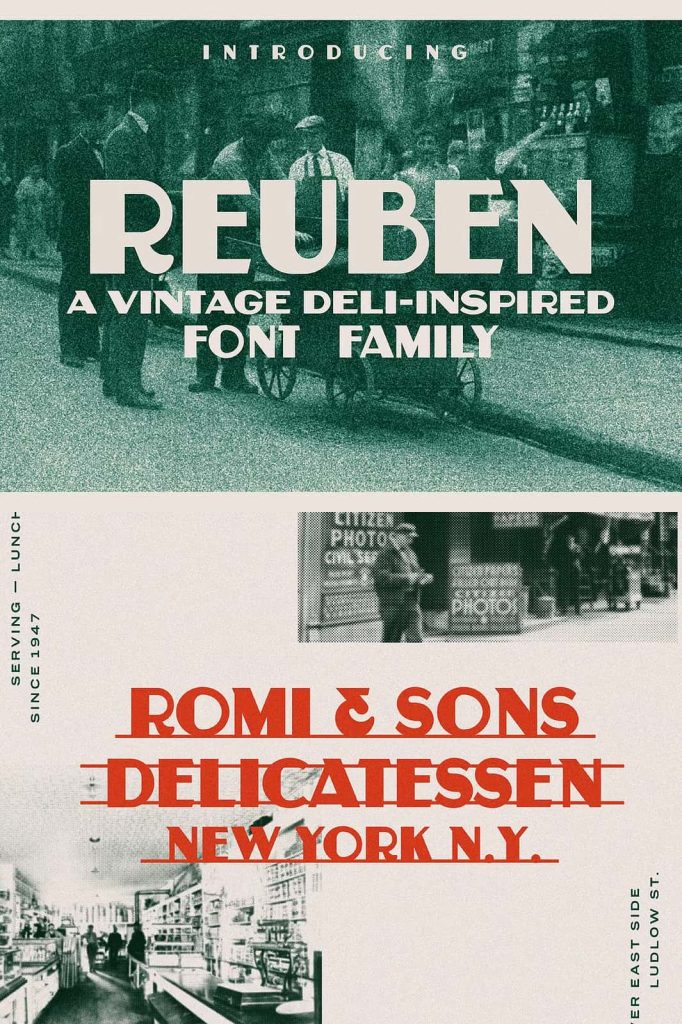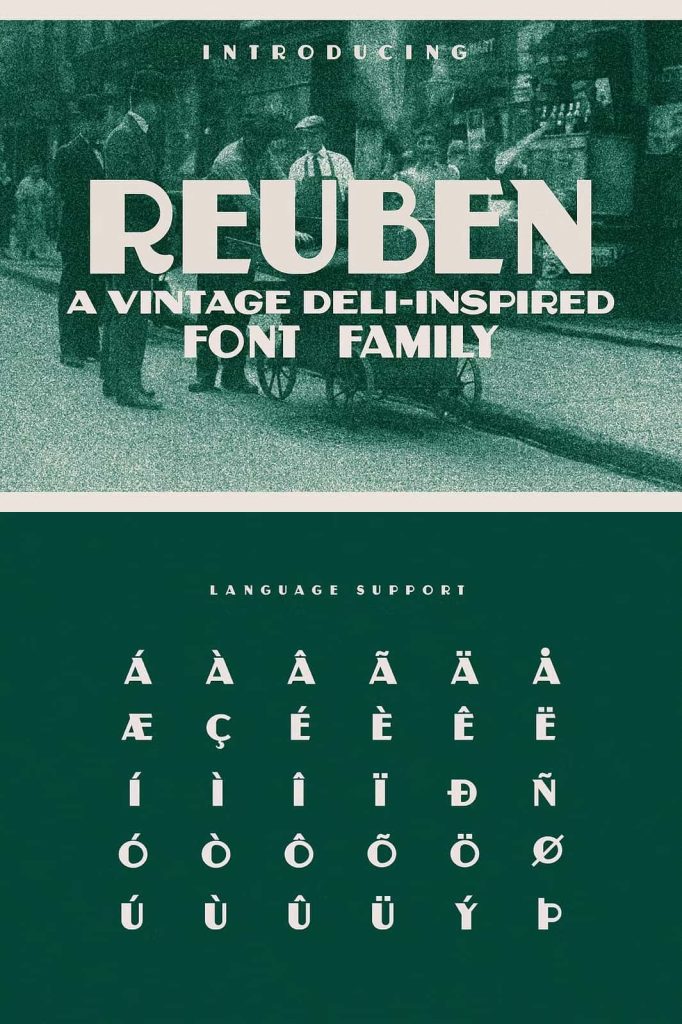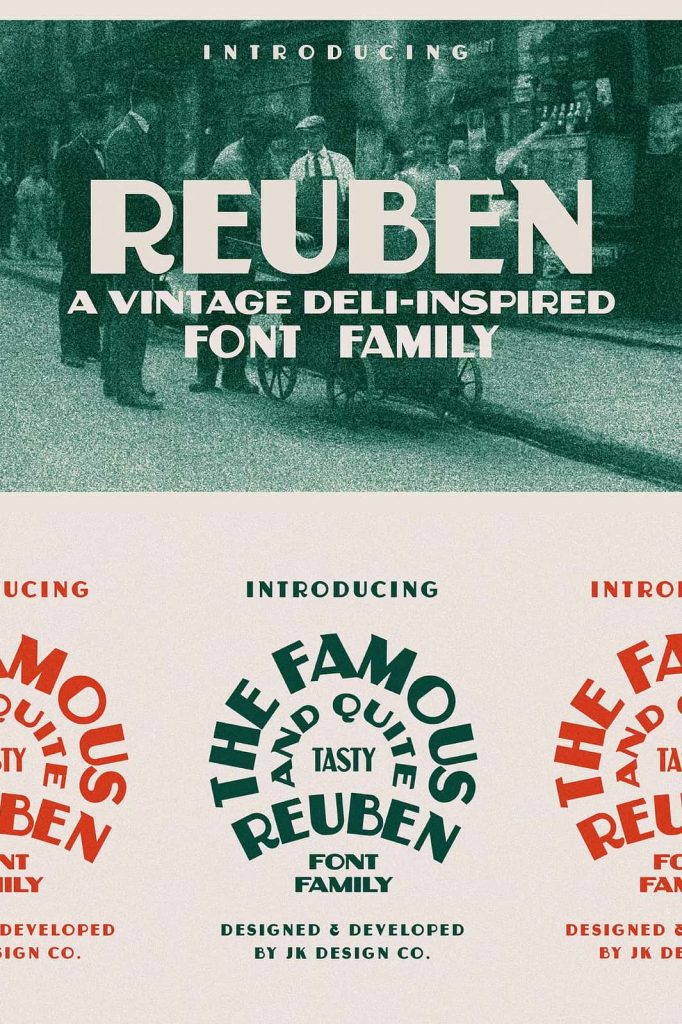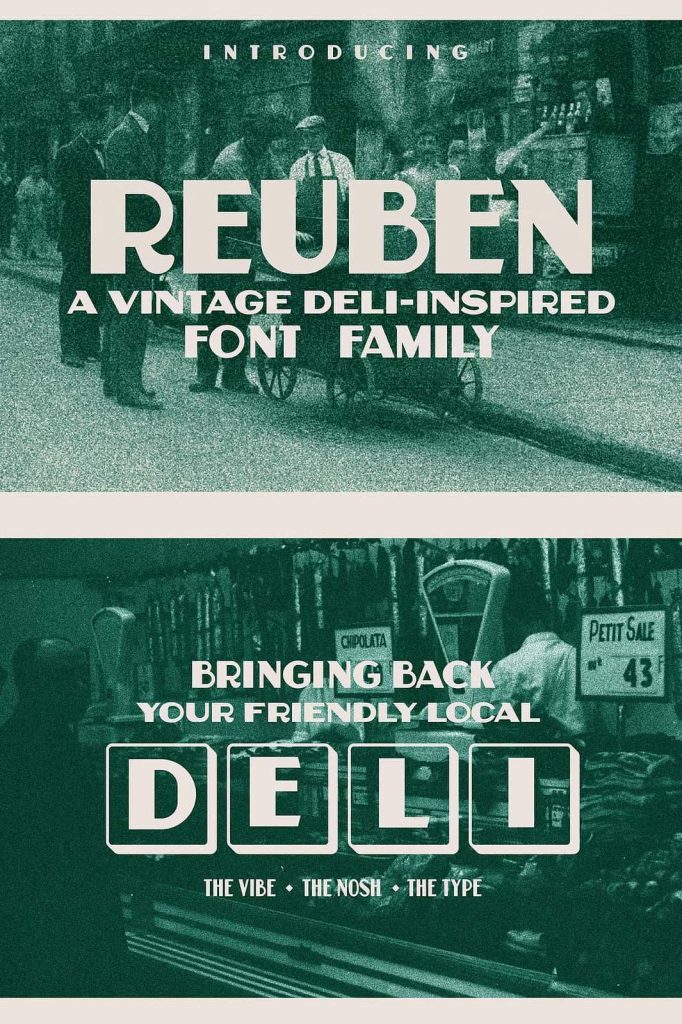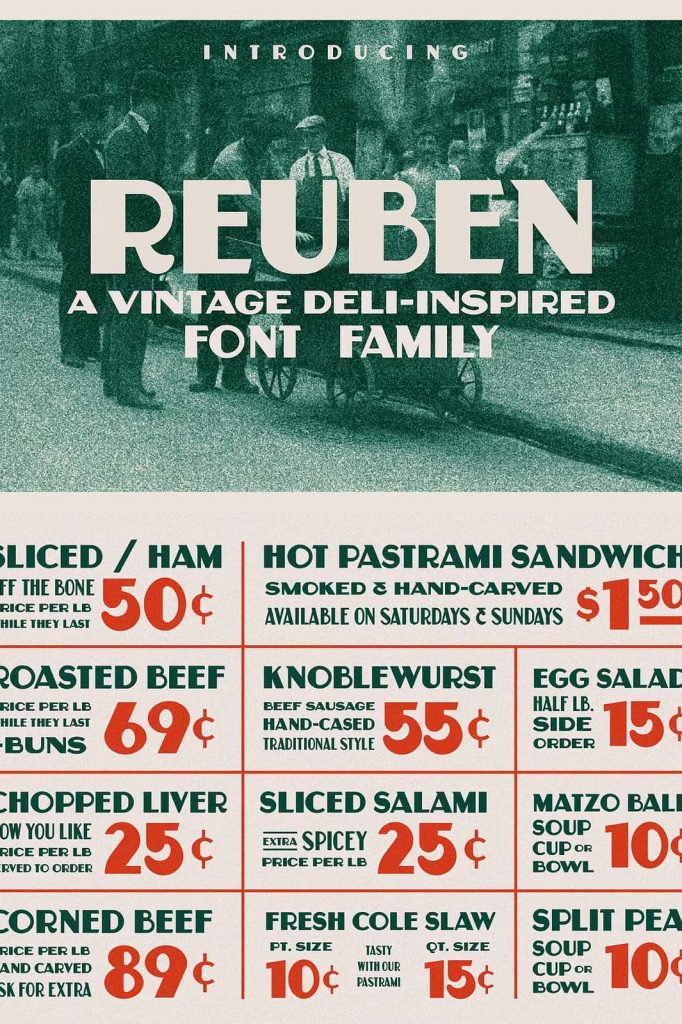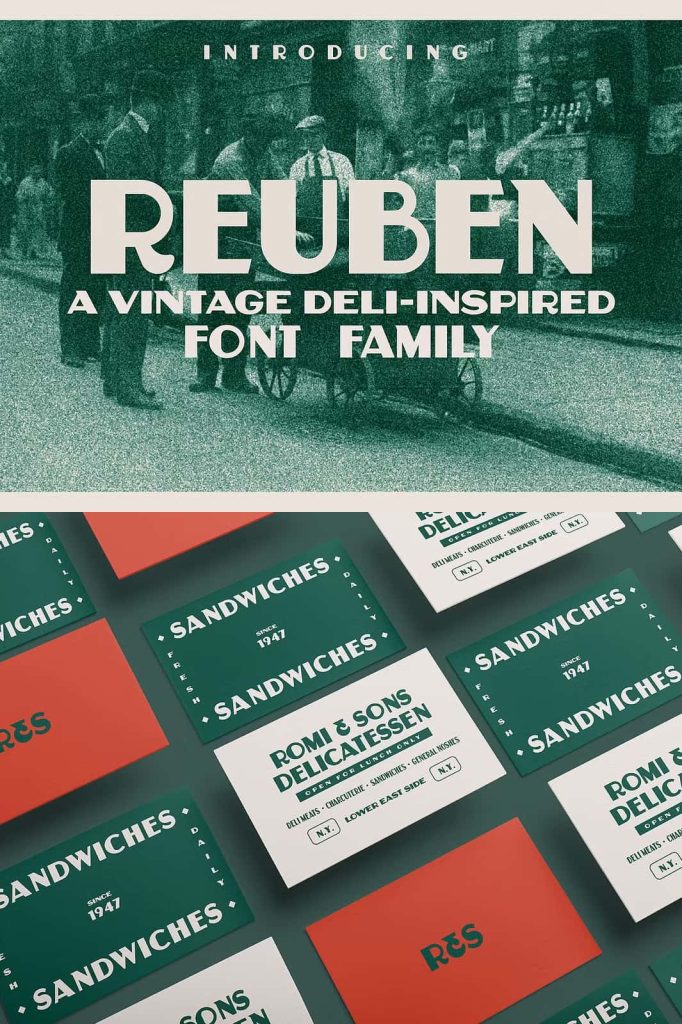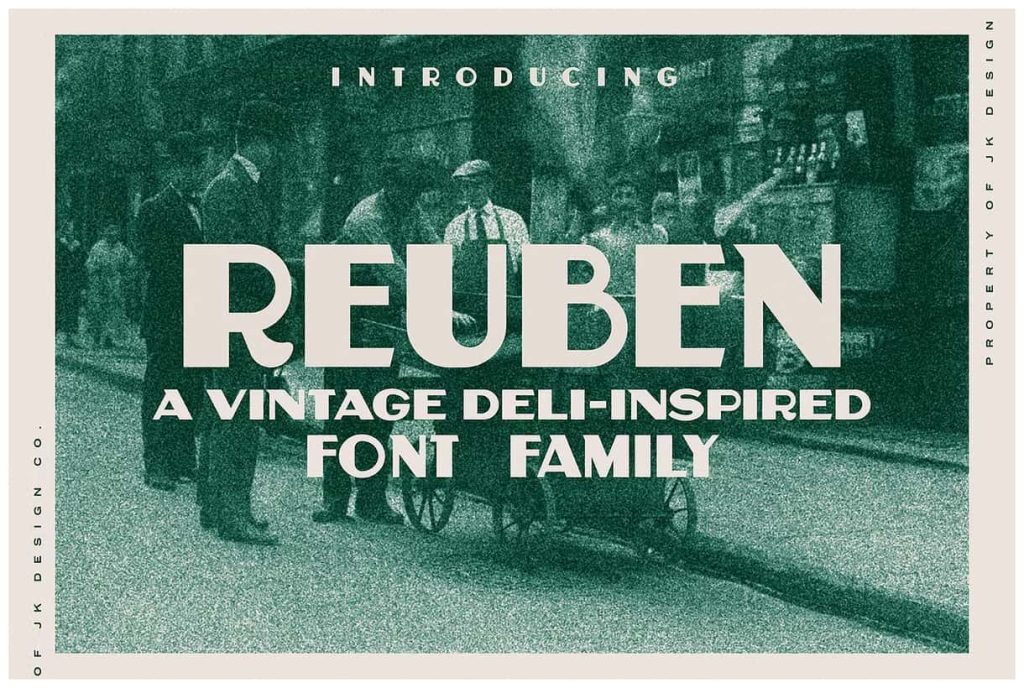
Reuben – A Vintage Display FontleastedApril 16, 2025Fonts Reuben is a display typeface inspired by vintage fascia signage of New York City’s lower east side. Download